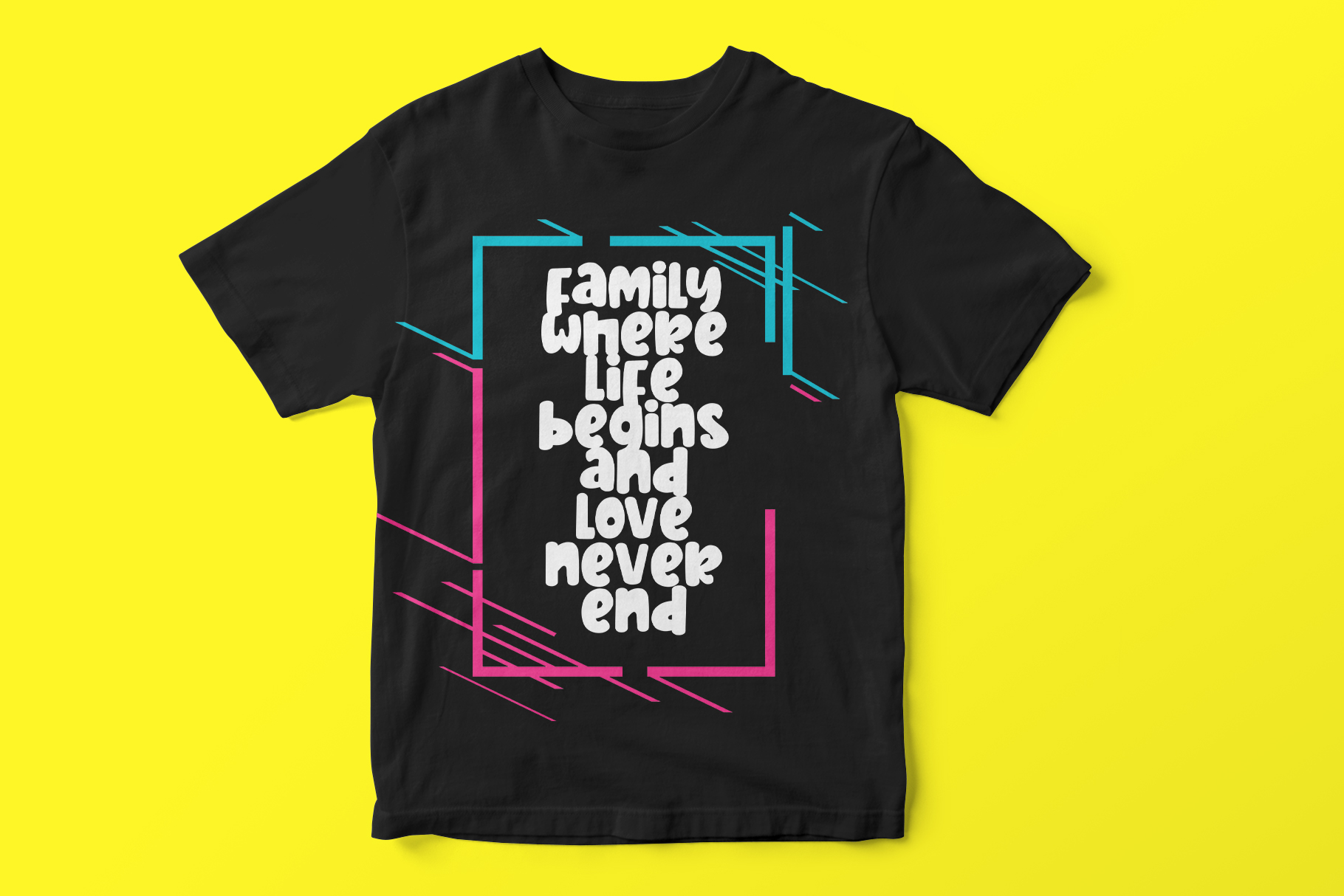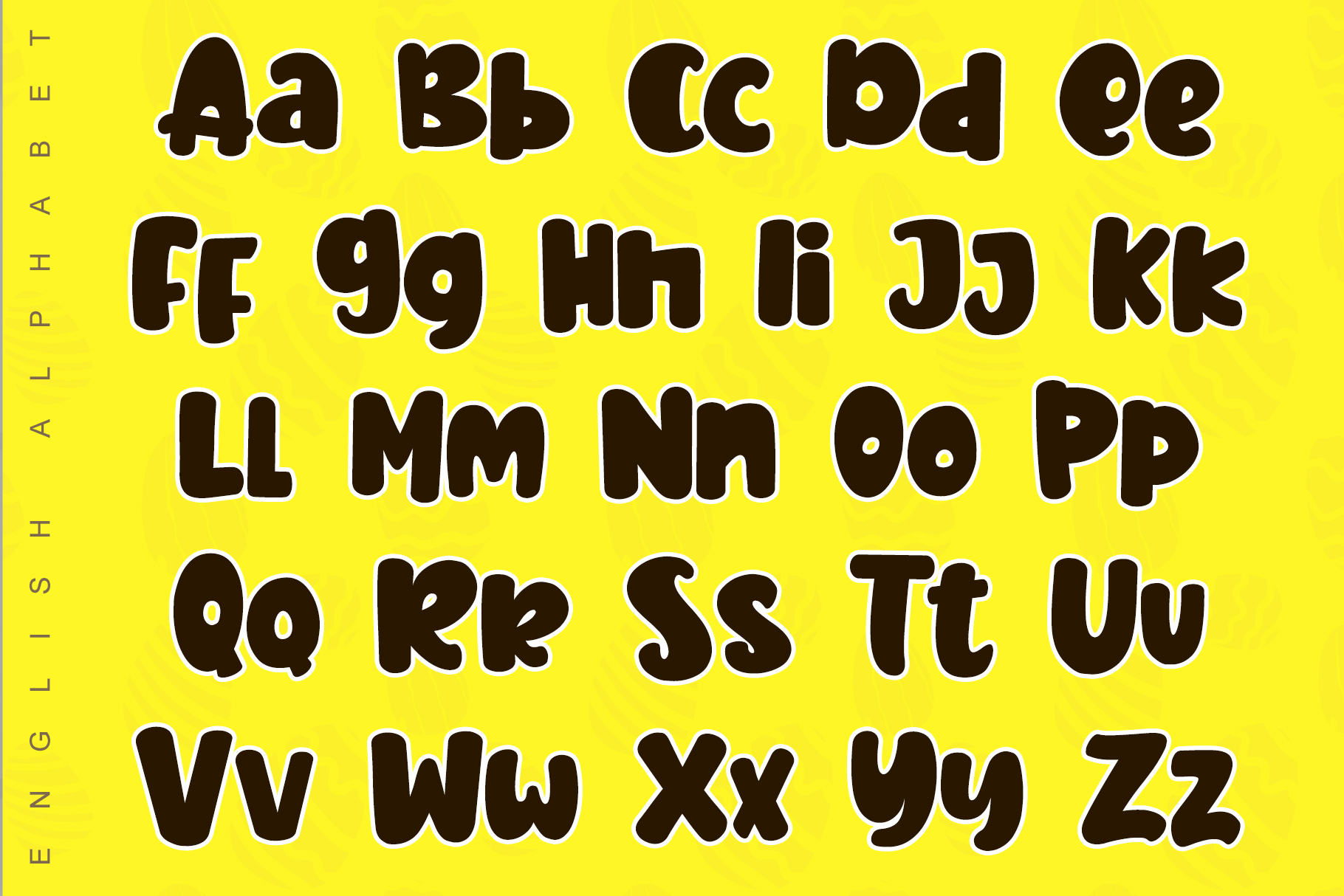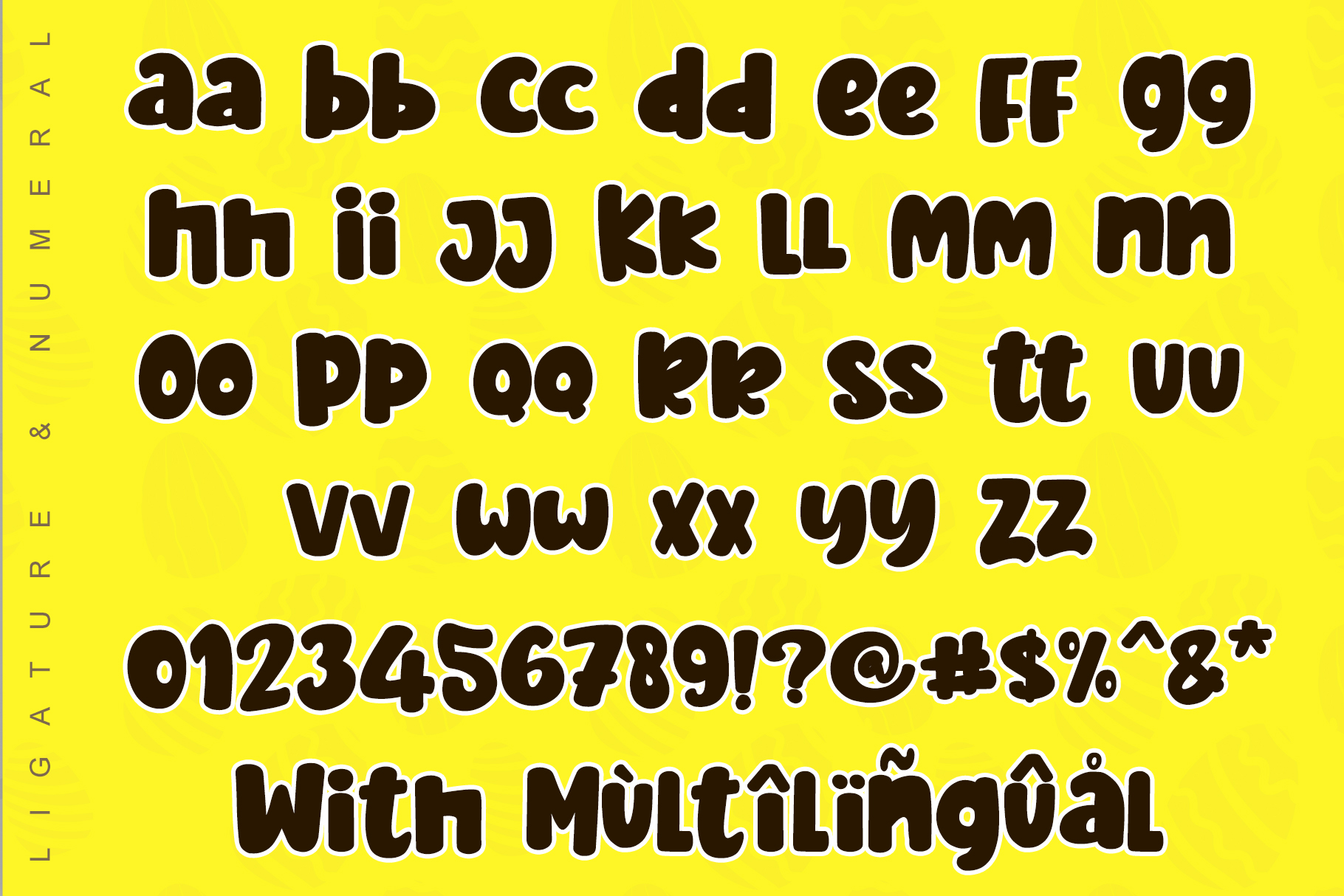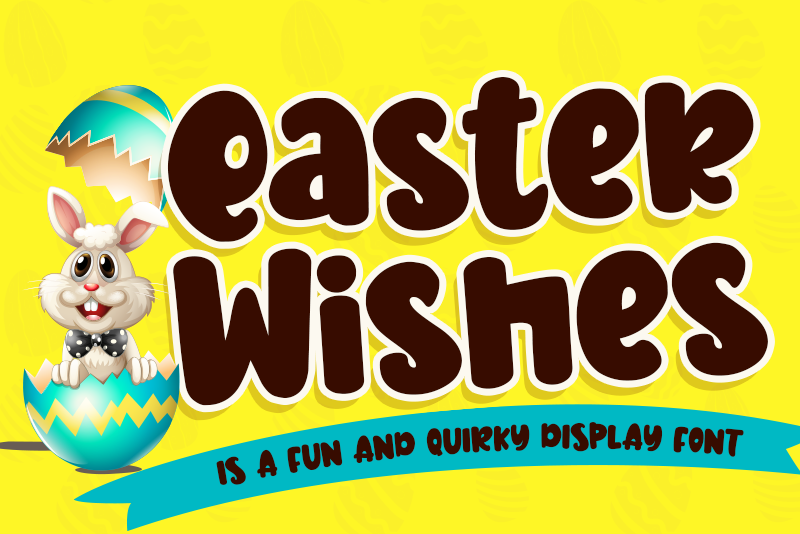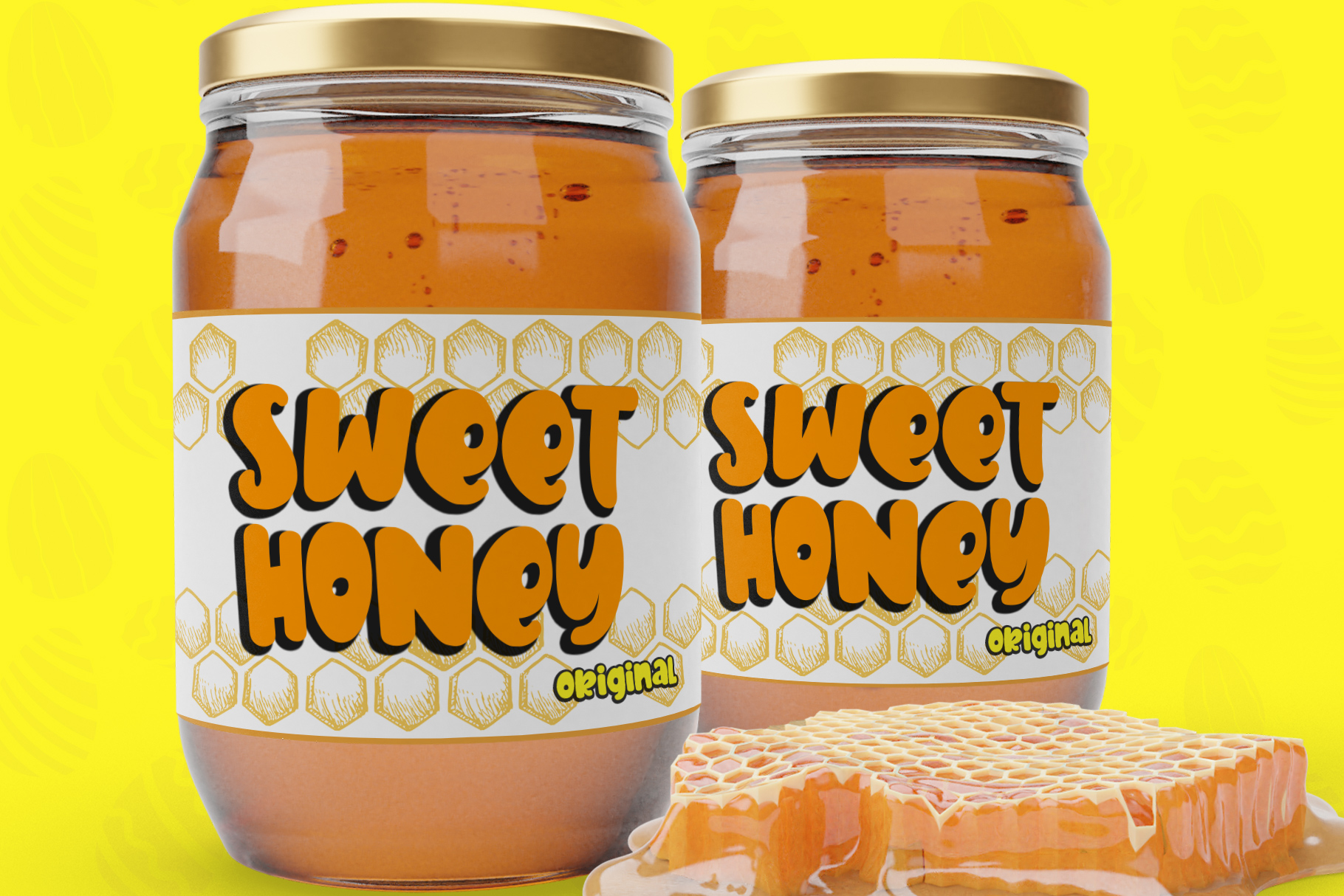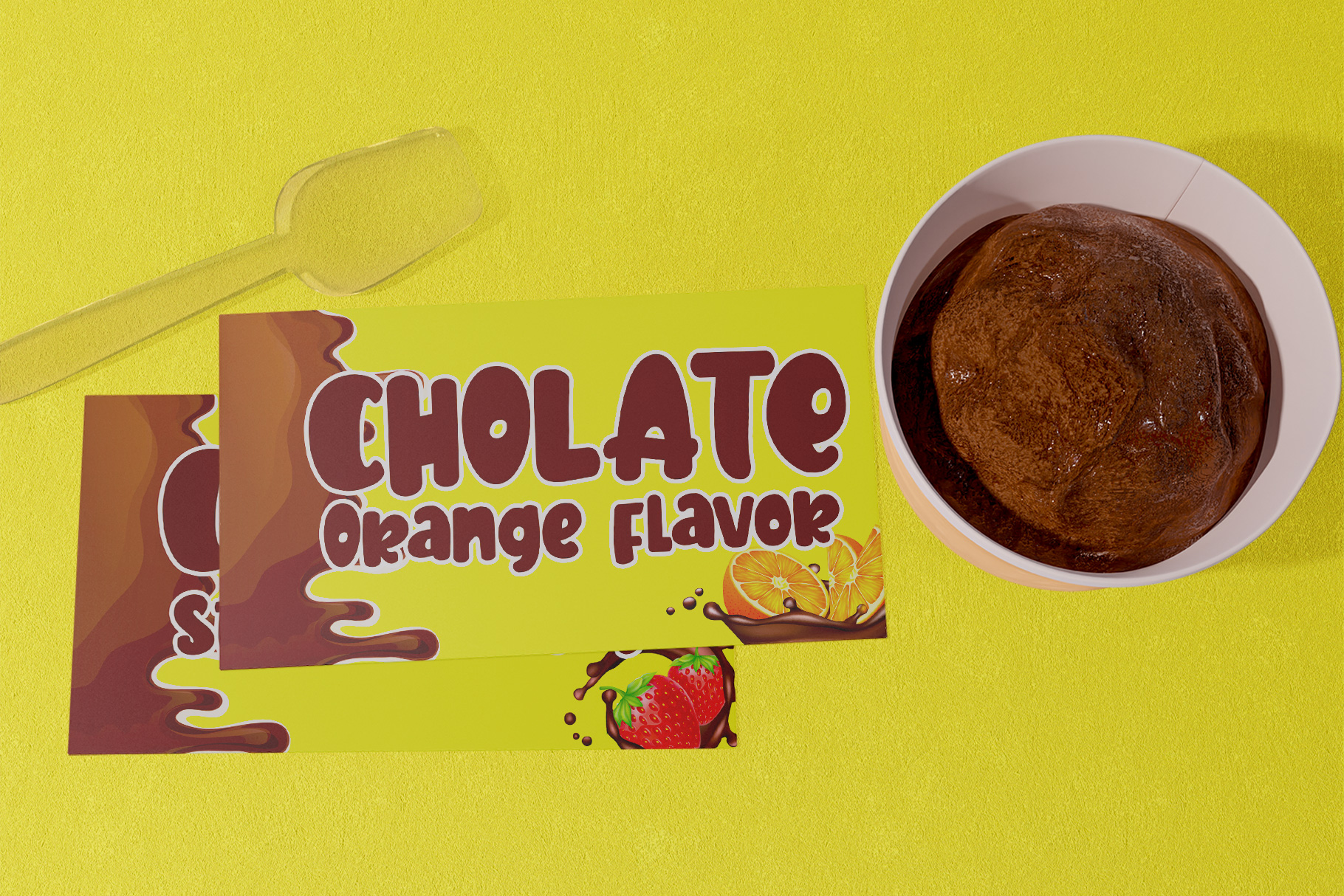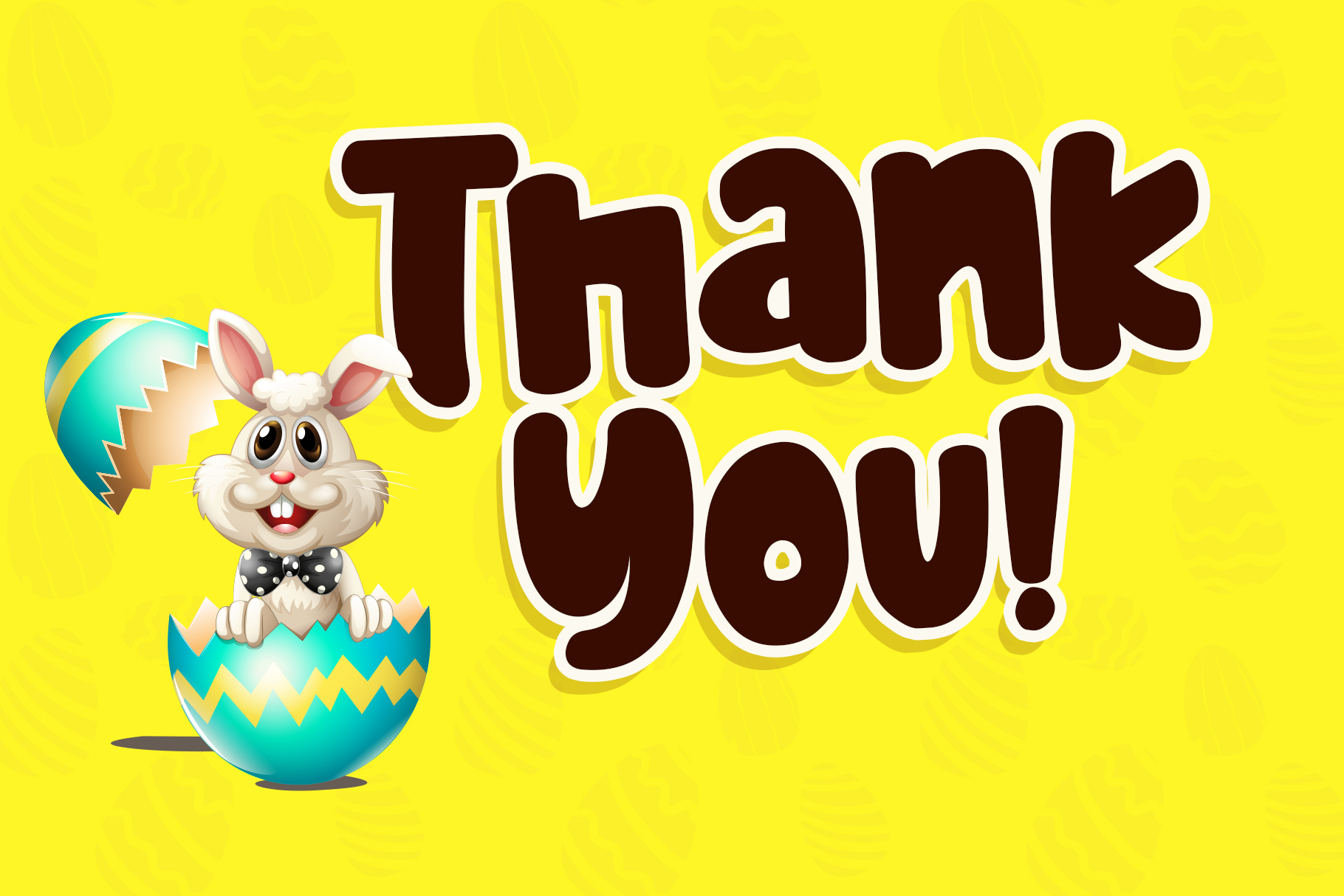
Easter Wishes by Stefani Letter
Colorful, chunky display font with playful personality, ideal for whimsical designs, holidays, and children's projects.